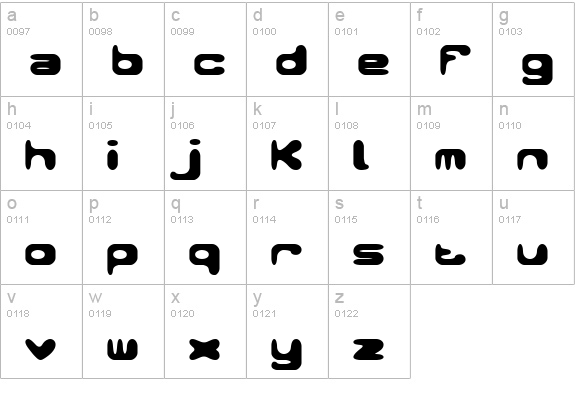
Conduit (BRK) Font Details
Conduit (BRK) font is a modern and sleek typeface that exudes sophistication and elegance. Its clean lines and contemporary design make it a versatile choice for a wide range of projects, from branding to editorial design. The font features a distinctive geometric style that adds a touch of modernity to any design. What's even better is that Conduit (BRK) font is available for free download at FontsMarket.com. This means you can easily access this stylish and versatile font without any cost. Whether you're a designer looking to elevate your projects or a business in need of a fresh new look, Conduit (BRK) font is the perfect choice. Download it today and add a touch of modern elegance to your designs.